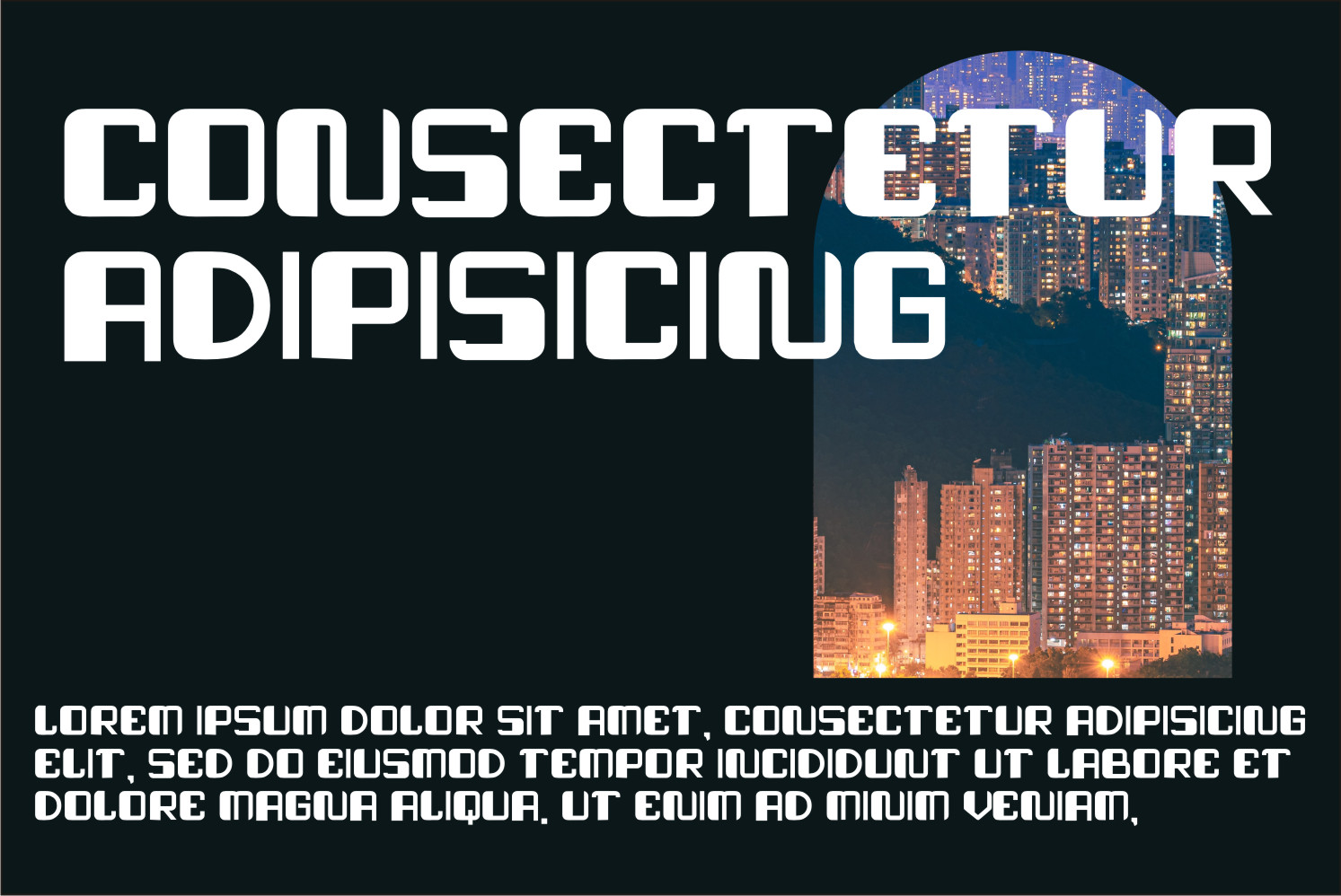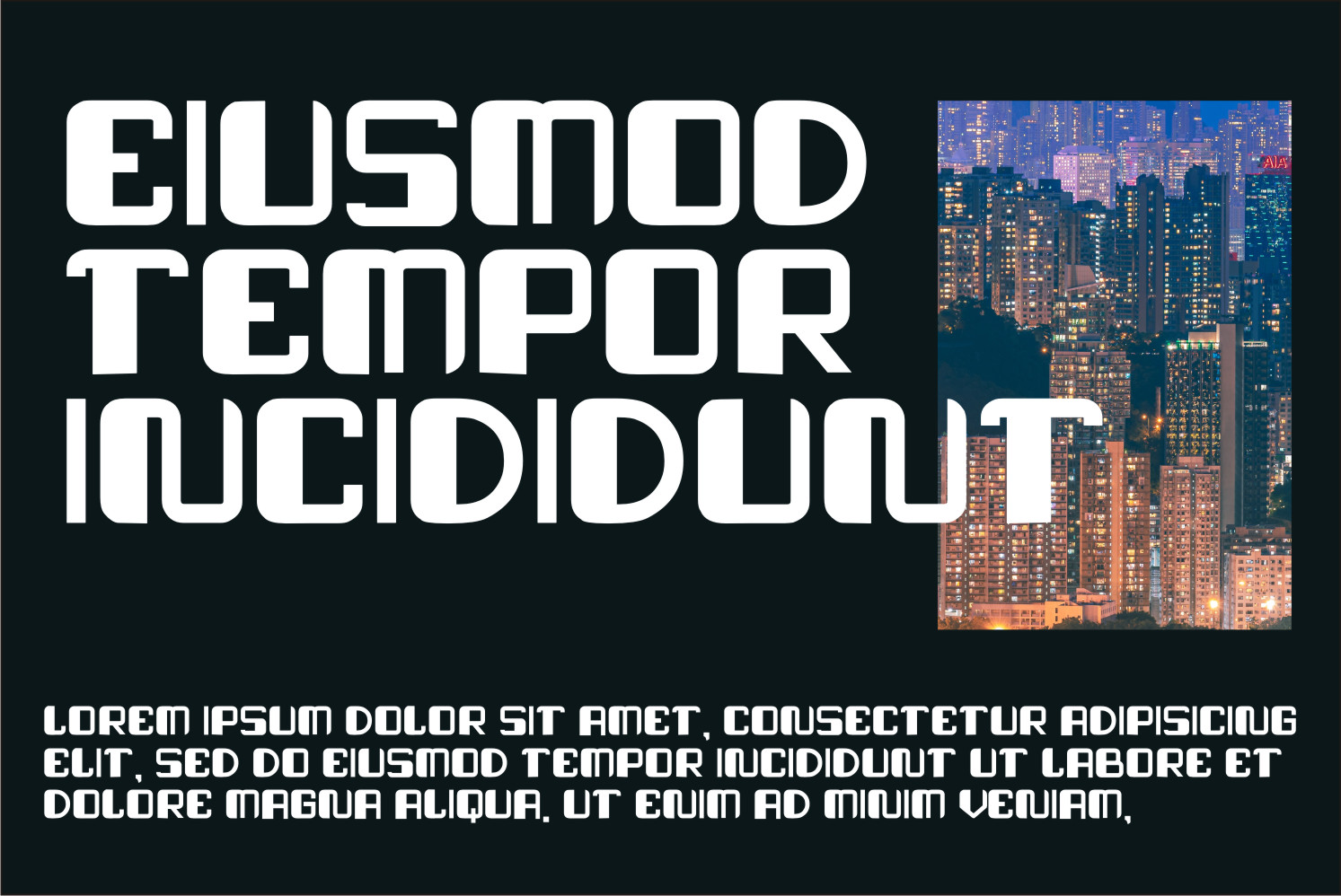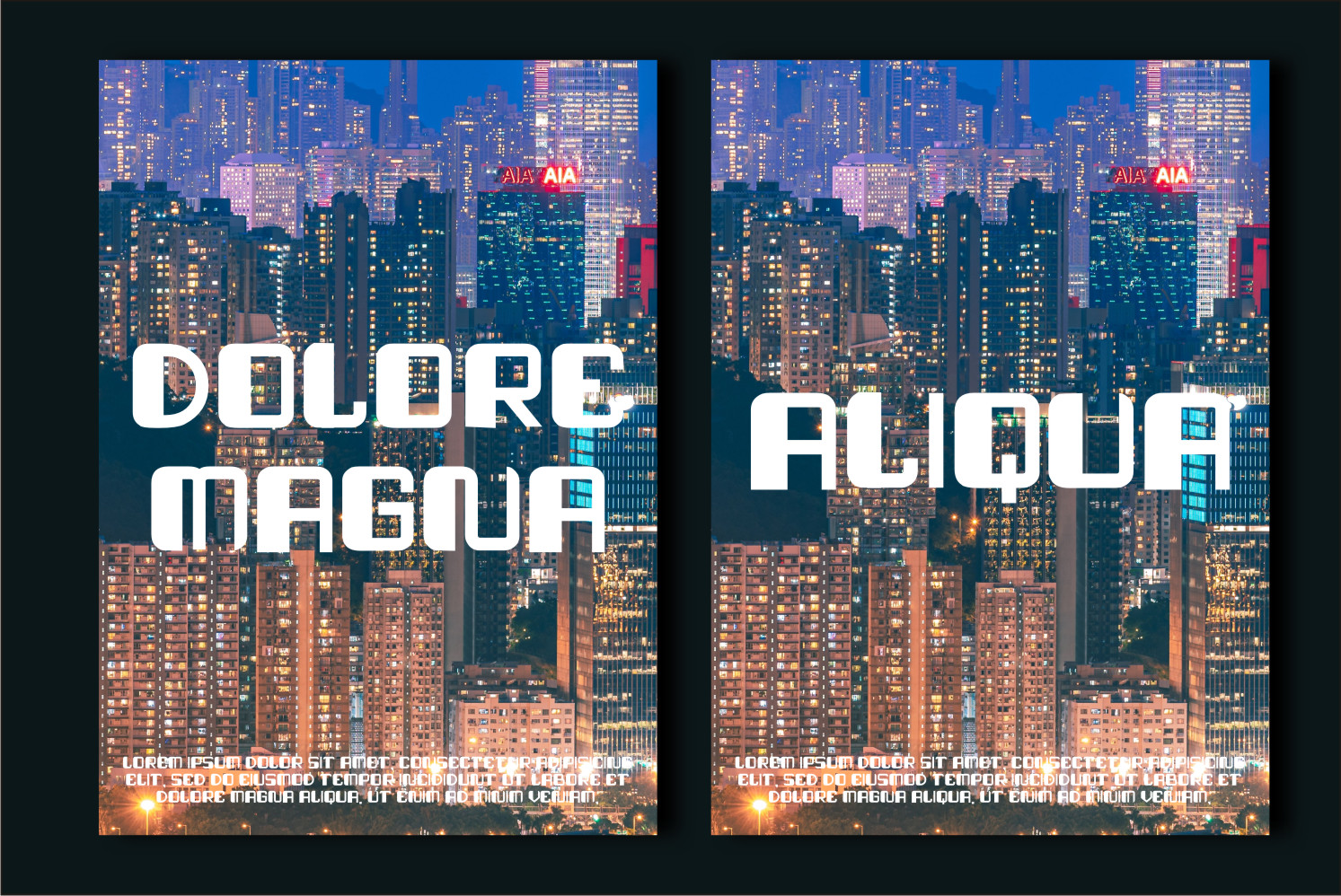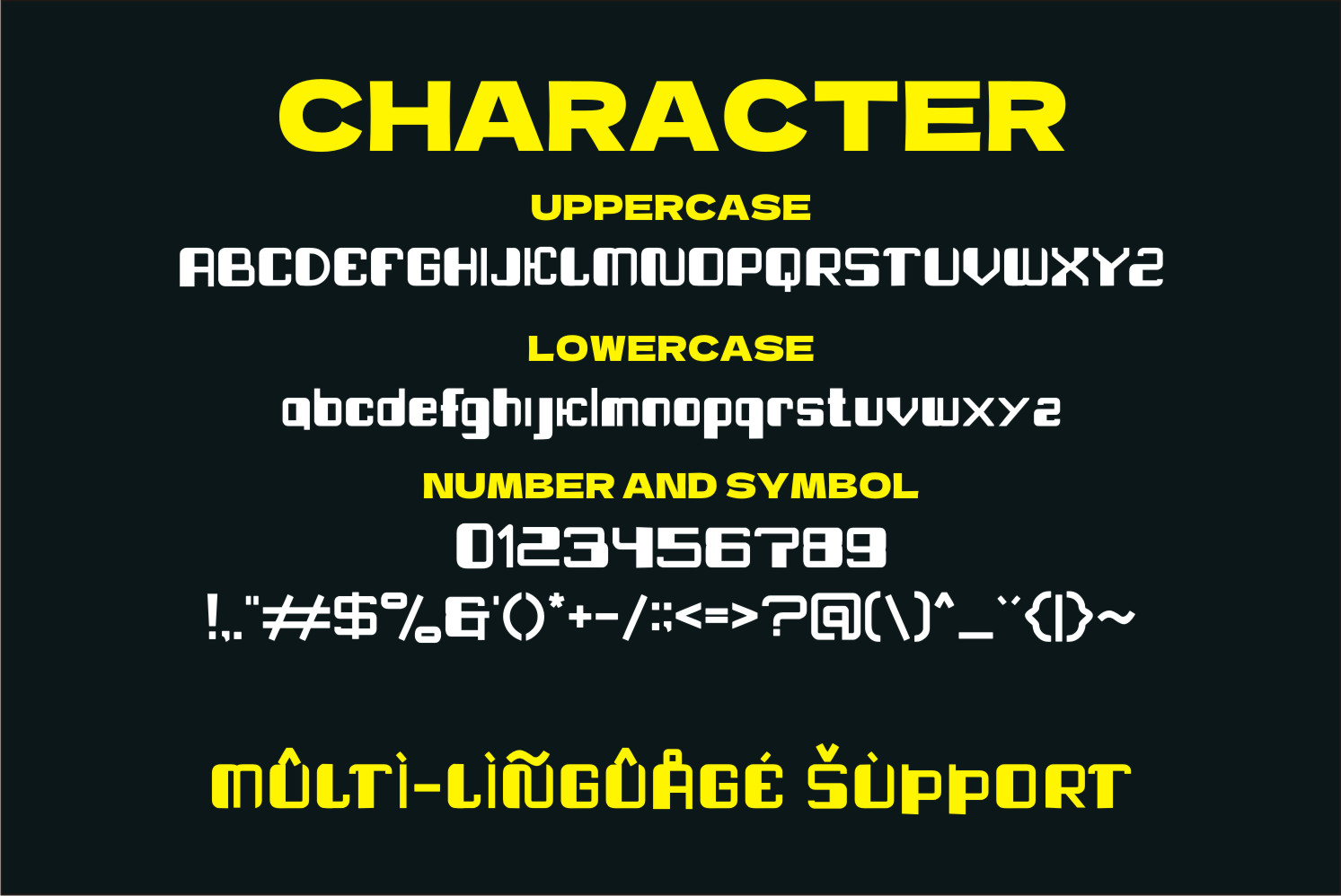
Nebulon Font
Nebulon Display Font
It’s a bold and robotic styled display font. This font is ideal for writing web designs, business cards, or pretty much anything else that requires a futuristic touch.